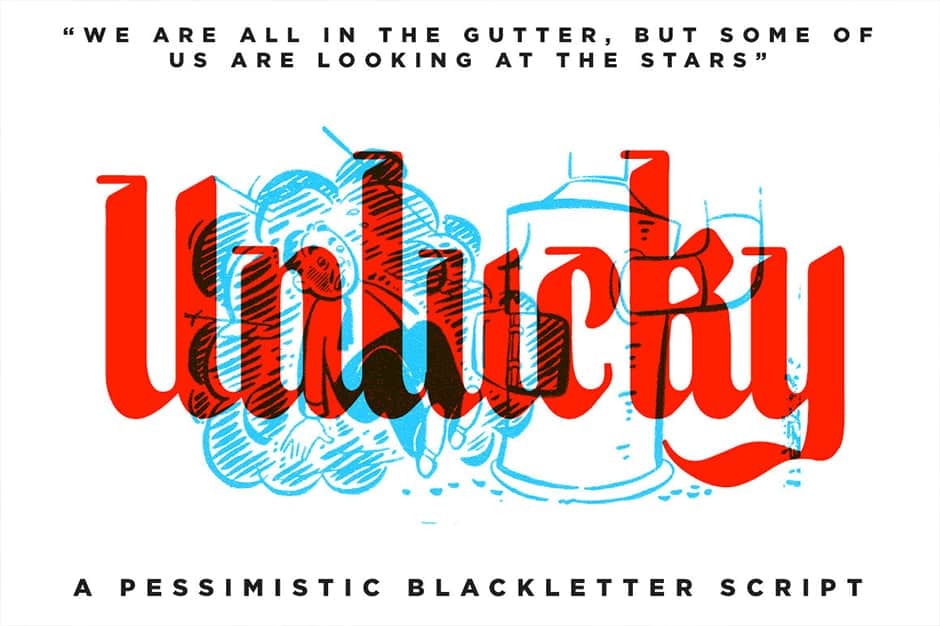
Top 36+ Spooky Halloween Fonts (Free & Premium)
Are you on the lookout for all of the best halloween fonts? If you are, then you’re in luck!
Spooky Halloween Fonts are perfect for giving your digital projects a unique vibe but picking a perfect Halloween font is easier said than done. After all, there are scores of Halloween fonts to choose from.
Hence, it becomes a difficult task to pick the spookiest fonts. Worry not, as we bring you a collection of the top spooky Halloween fonts that are suitable for all kinds of designs from invitations, greetings, events, posters, titles, Halloween and horror-themed designs, and much more.
Check out our compilation of the best Halloween fonts below:
Top 10+ Spooky Halloween Fonts (Free & Premium)
What is a good halloween font? Check out these top spooky picks:
1. Mister Pumpkins – Halloween Font With Bonus Vector
2. Dreadful – A Spooky Typeface
3. Fright Night
4. MonsterSquad
5. Night Still Comes Lite Serif Font
6. Brotherhood – Casual Handwritten Font
7. Twilight Script
8. Unlucky – BlackLetter Script Font
9. Baker Street Pro Font Family
10. Sabotaged Font + Extras
Best Halloween Fonts
36+ Best Halloween Fonts
1. Mister Pumpkins – Halloween Font With Bonus Vector
Mister Pumpkins – Halloween Font With Bonus Vector
Mister Pumpkins is a Halloween-themed font that comes with awesome illustrations. It features a unique display font family consisting of three styles- clean, rough, and aged, making them a perfect choice for tees print, stickers, posters, and more. Additionally, this pack includes five awesome mister pumpkin illustrations and a bonus of 30 mister pumpkin doodles in .EPS format.
Moreover, this pack supports multiple languages like Afrikaans, Albanian, Catalan, Danish, and Dutch, making it an ideal pack to use for logotypes, badges, quotes, labels, packaging, or in your next multi-language design projects, especially on Halloween celebrations.
2. Dreadful – A Spooky Typeface
Dreadful – A Spooky Typeface
Dreadful – A Spooky Typeface. Image Courtesy: Design Cuts
Inspired by classic horror movies and vintage comics, this layered typeface is ideal for logotypes, headings, apparel designs, quotes, invitations, greeting cards, product packaging, posters, book covers, movies, and much more. The multi-language pack comes with four fonts- dreadful regular, dreadful rust, dreadful shadow, dreadful rot, one graphic pack, and two dreadful flyer and quotes. It is compatible with Adobe Photoshop CS3 (and higher versions), Adobe Illustrator Version CS3 (and higher versions).
3. Fright Night – Vintage horror font
Fright Night - Vintage horror font
Fright Night – Vintage horror font. Image Courtesy: Envato Elements
Fright Night Vintage Horror font is a horror-themed typeface that comes with a vintage design that’ll thrive on Trick-or-Treat or visuals. It comprises thrills, chills, and diacritics that have been inspired by vintage horror posters and bold geometric designs. This normal-spaced font belongs to the sans-serif family and is a type of typeface that you will usually see in classic horror movie posters. This font comes in 12 different styles and over 300 glyphs, supporting basic Latin as well as a lot of Western European languages.
4. Monster Squad – Fun Halloween Typeface
Monster Squad - Fun Halloween Typeface
Monster Squad – Fun Halloween Typeface. Image Courtesy: Envato Elements
Need a bold and fun font for creating designs at children and Halloween events? Then, this easy-to-install font, providing you with a wide range of casual purpose fonts, is exactly what need. This font includes MonsterSquad OTF, TTF, WOFF files, basic Latin uppercase, and lowercase alphabets, numbers, punctuations, and much more. It belongs to the sans-serif family and comes in normal spacing. This font can be optimized in large (display/poster) size. Additionally, you’ll get free five cute Halloween monster vector objects with this pack.
Top 35+ Spooky Halloween Fonts
We hope that the above list of spooky Halloween fonts will enable you to customize your Halloween invitations, events, decorations, and anything else that may come to mind. These were the fonts that we believe are the spookiest Halloween fonts. Which of them is your favorite?